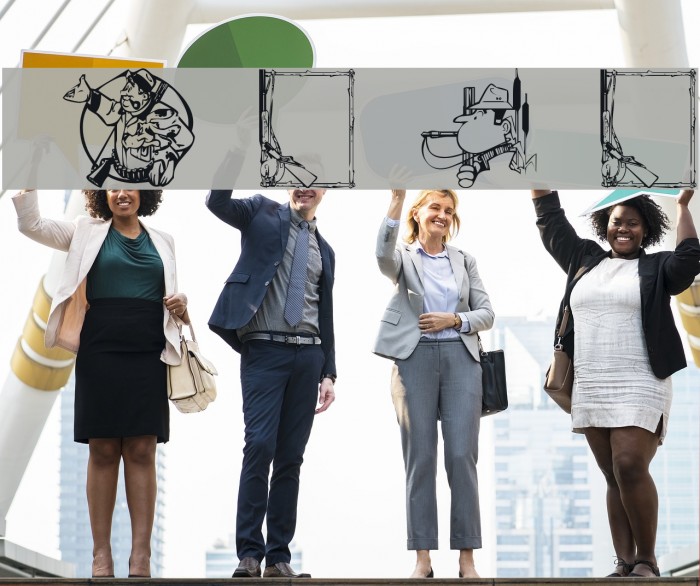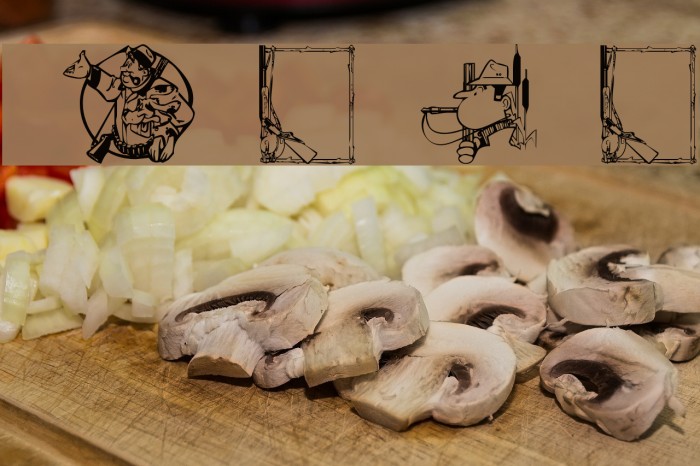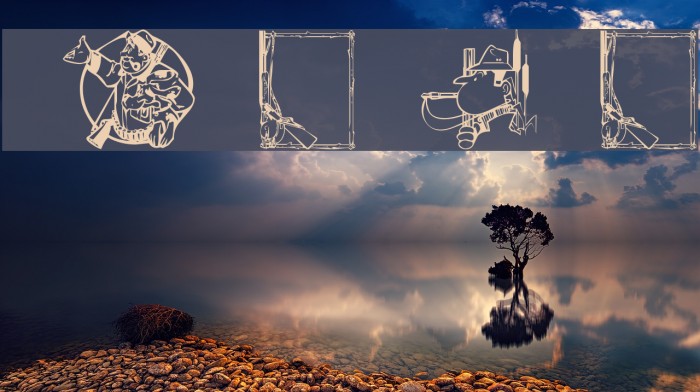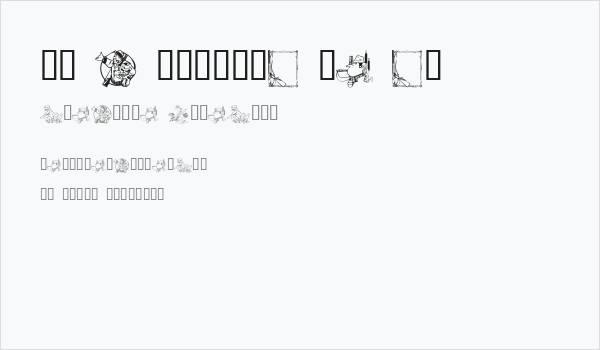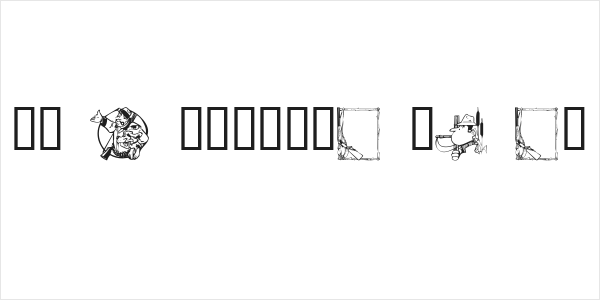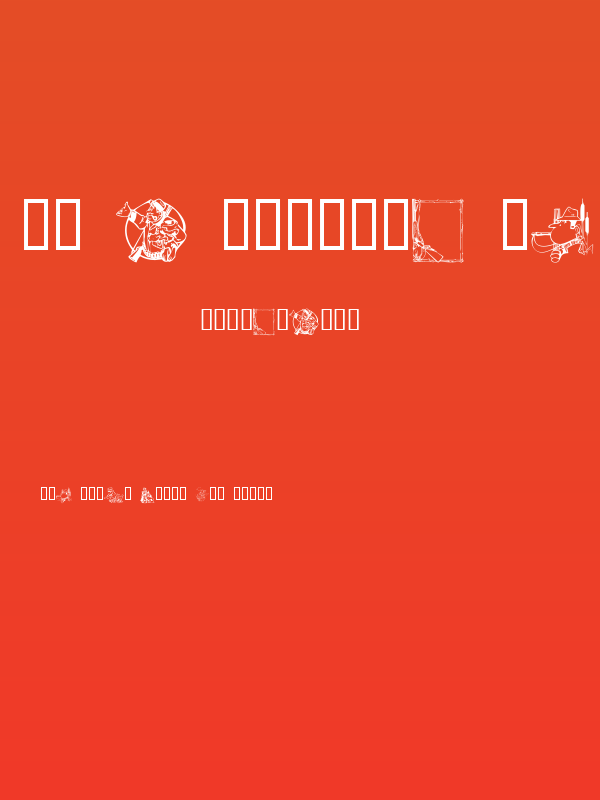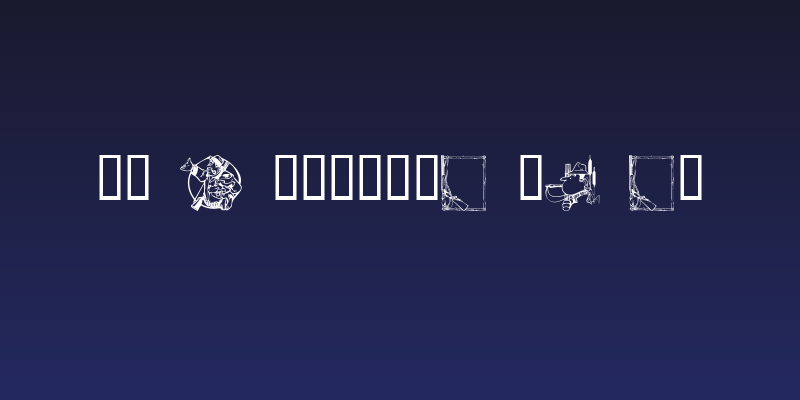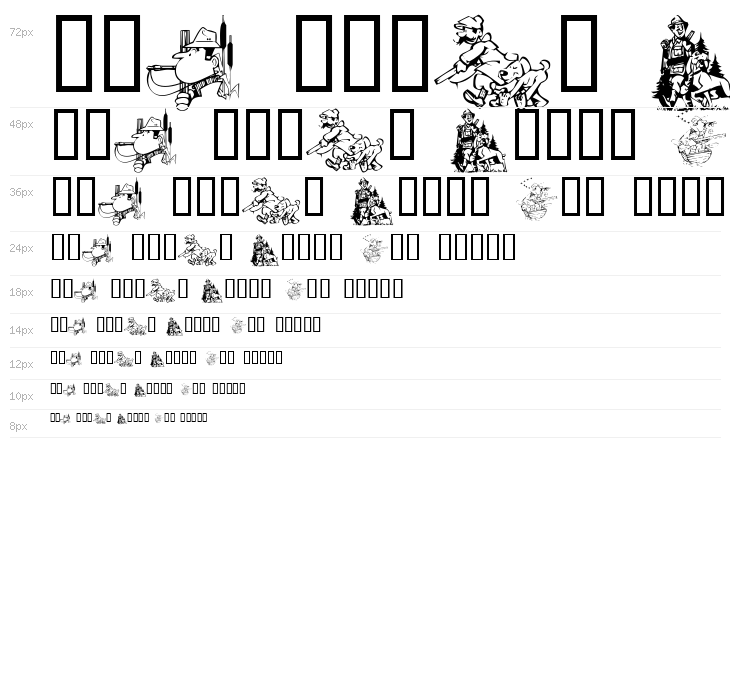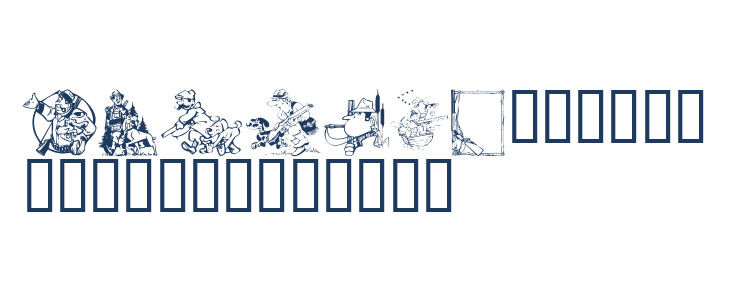
KR A Hunting We Go Font
KR A Hunting We Go Description
This is not a traditional font but rather a collection of hunting-themed illustrations. Each character is represented by a unique drawing depicting various hunting scenes and characters, such as hunters with dogs, hunters in action, and other related imagery. The illustrations are detailed and convey a sense of outdoor adventure and wildlife. This set is more of a decorative or thematic collection rather than a functional typeface for text.
| Use Case | Decorative elements, Themed projects |
| Proposed Projects | Ideal for themed invitations, scrapbooking, or decorative elements in hunting-related publications. |